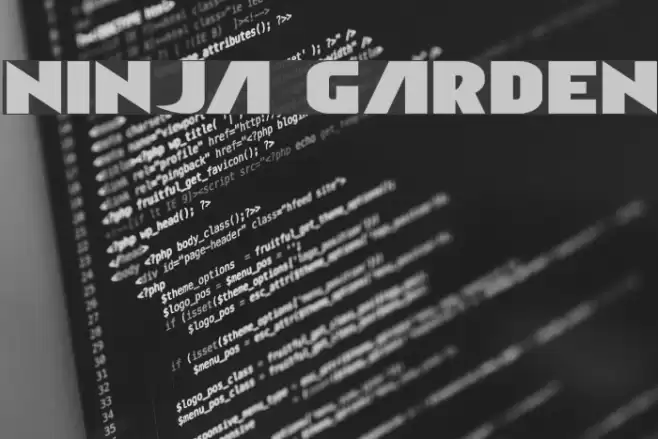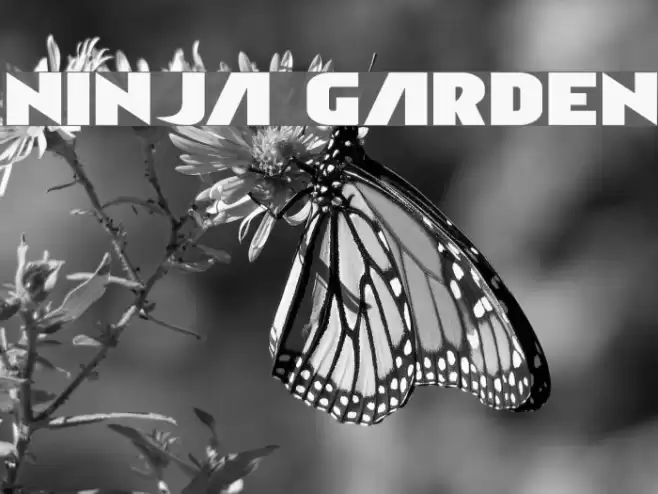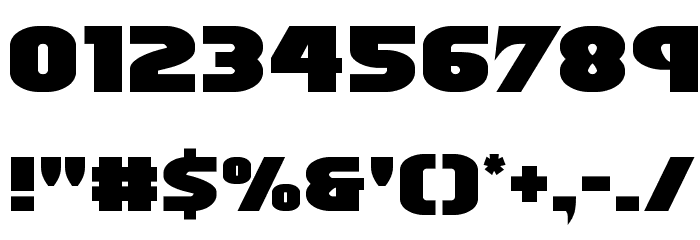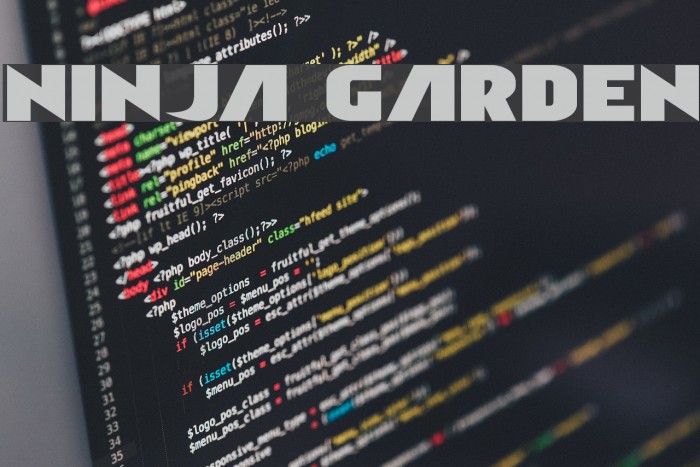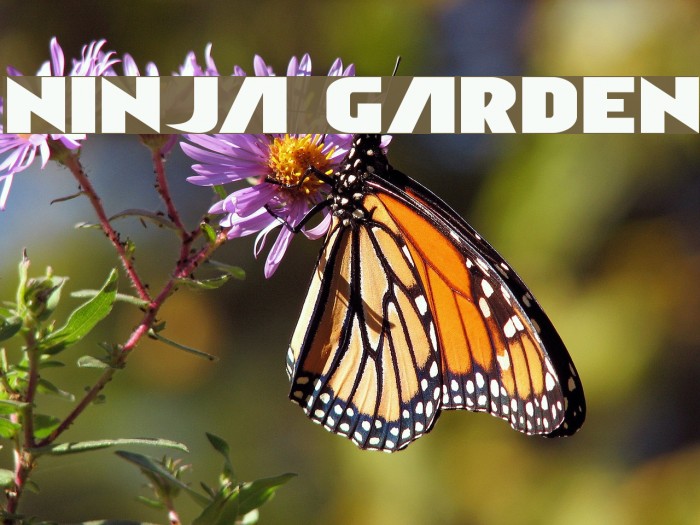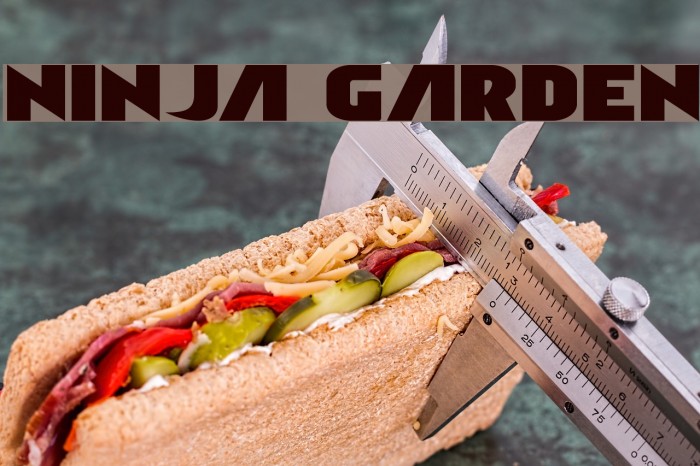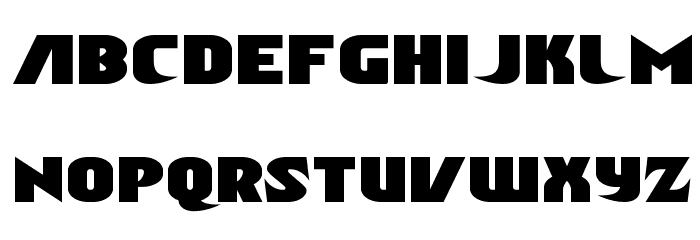
Ninja Garden Font
Ninja Garden Description
This font features a bold and striking design with a modern, angular style. The characters are crafted with thick strokes and sharp edges, giving them a powerful and dynamic appearance. The uppercase letters exhibit a uniform height and width, while the lowercase letters maintain a consistent style, ensuring readability. Numbers and special characters are designed to match the boldness of the alphabet, making them suitable for impactful displays. The overall aesthetic is both futuristic and robust, ideal for making a strong visual statement.
A bold, angular font with a modern and dynamic style from Uncategorized fonts.
- Proposed Projects: Ideal for video game titles, action movie posters, sports branding, and dynamic logo designs.